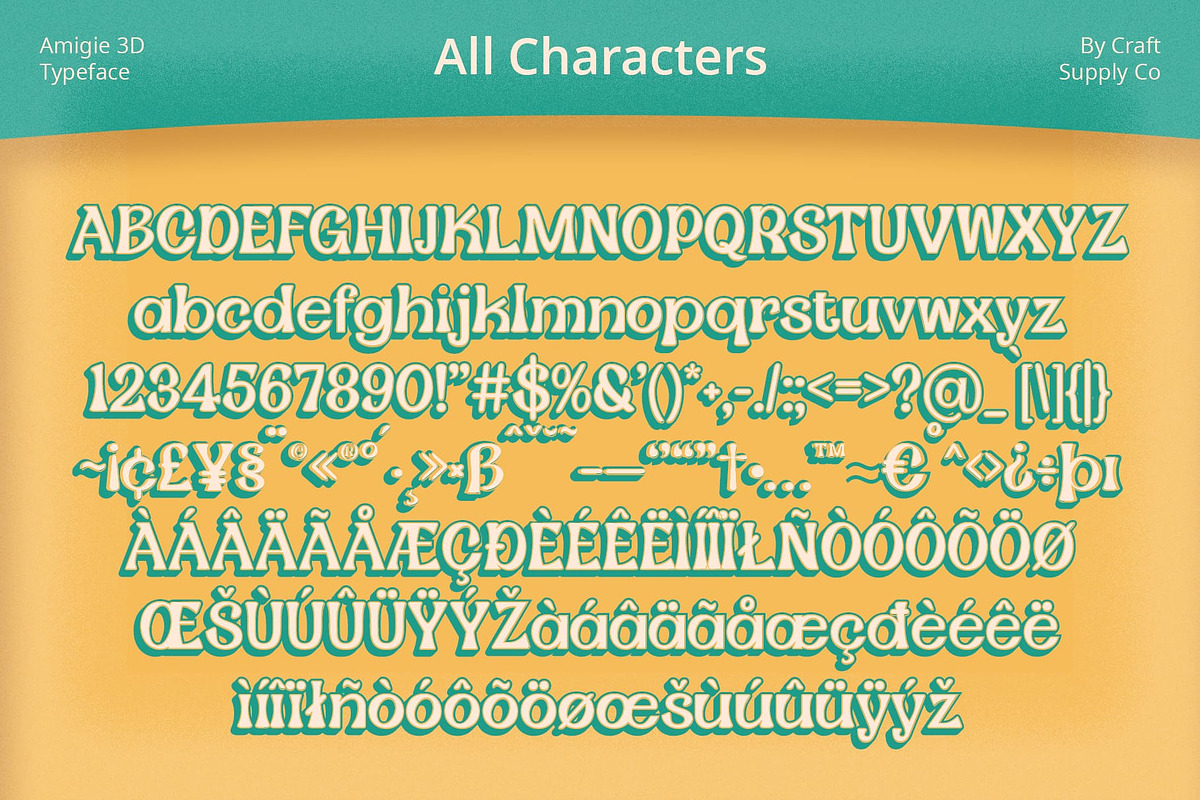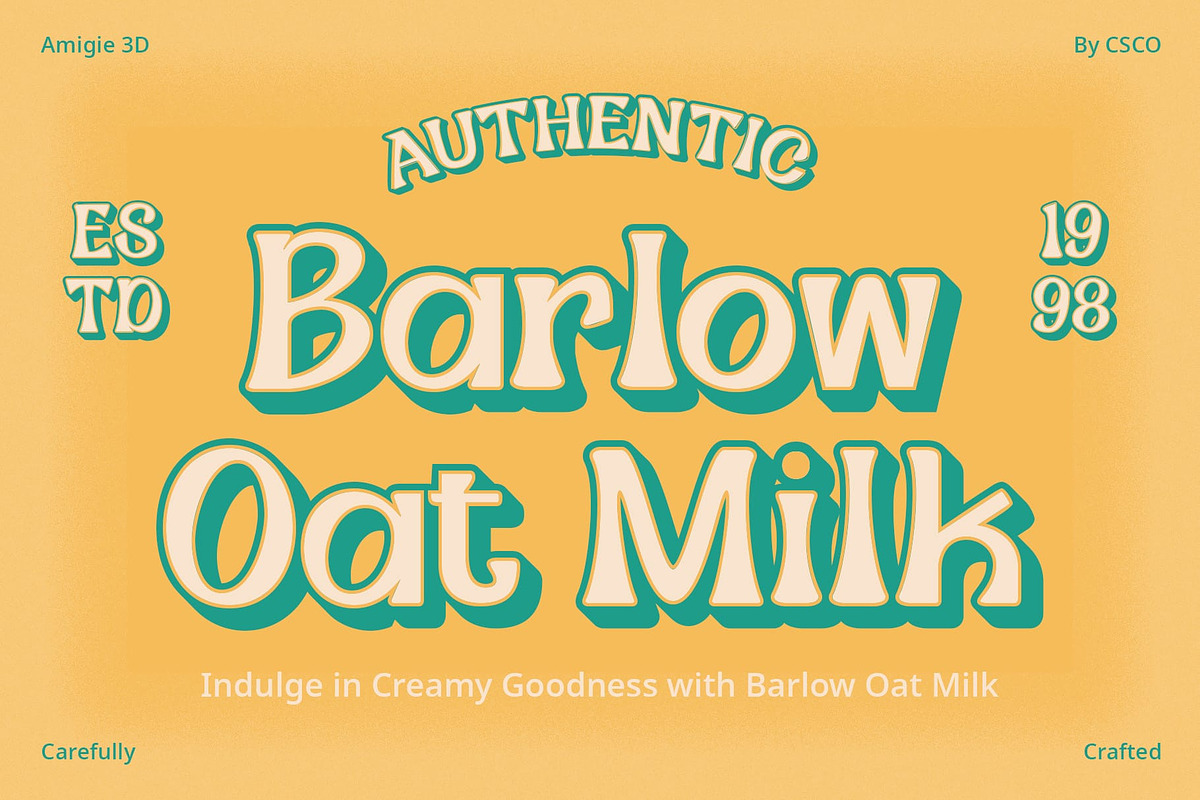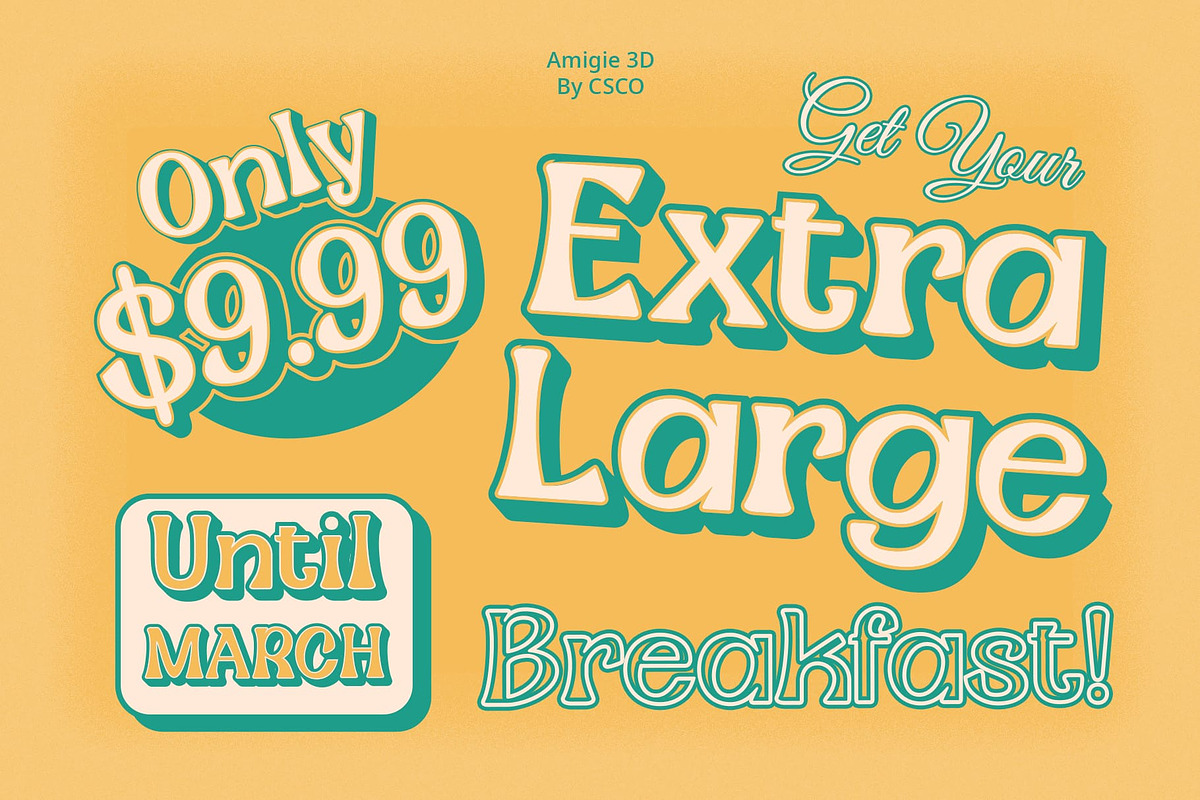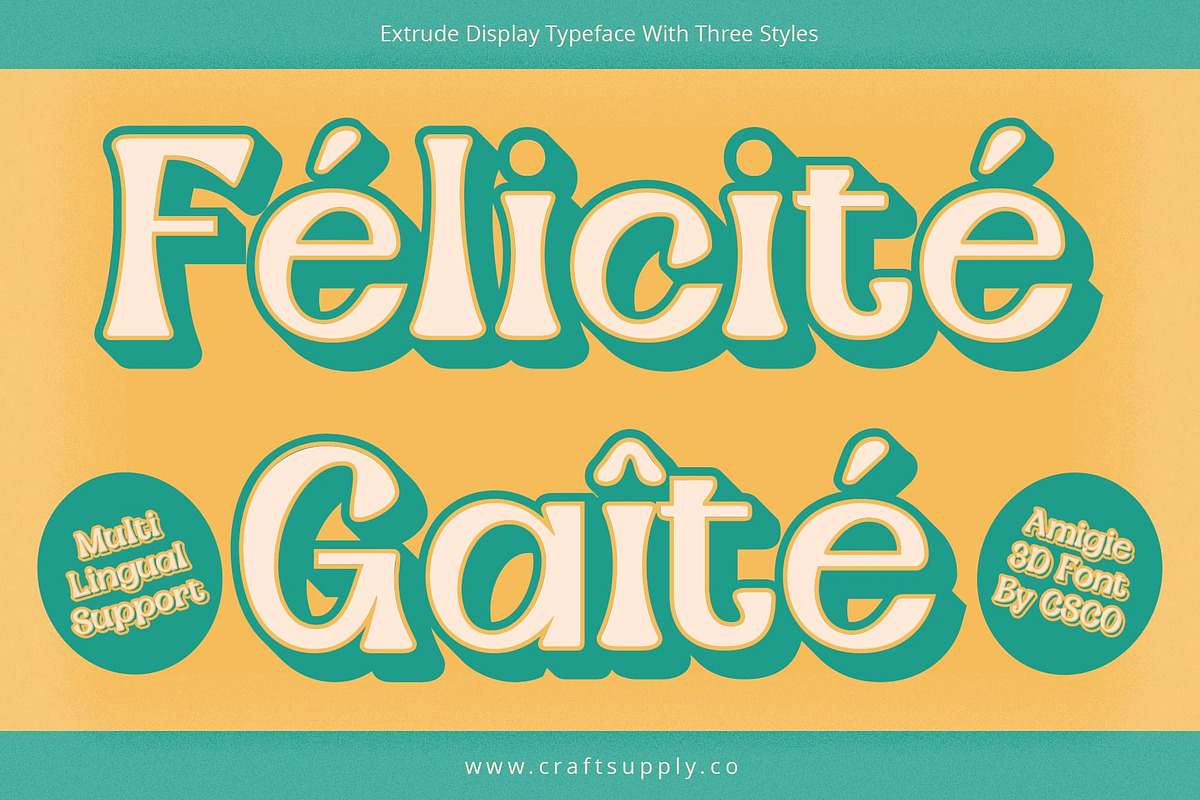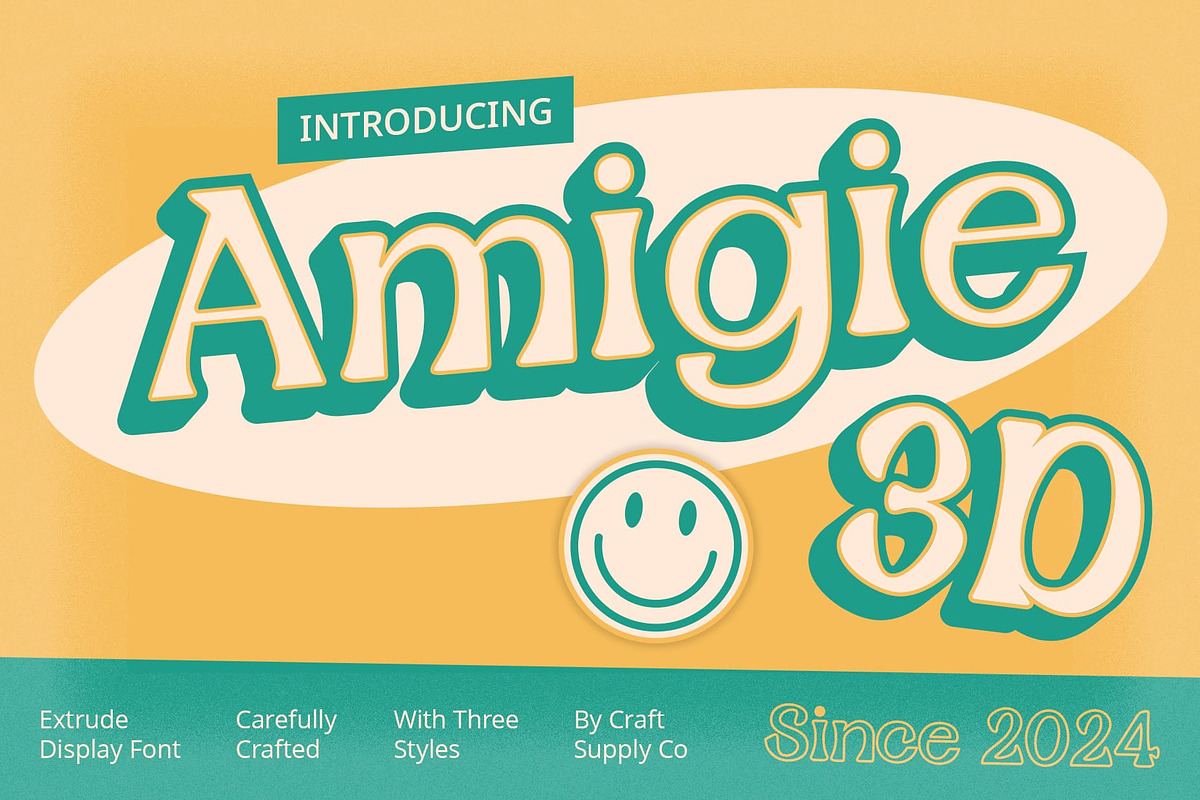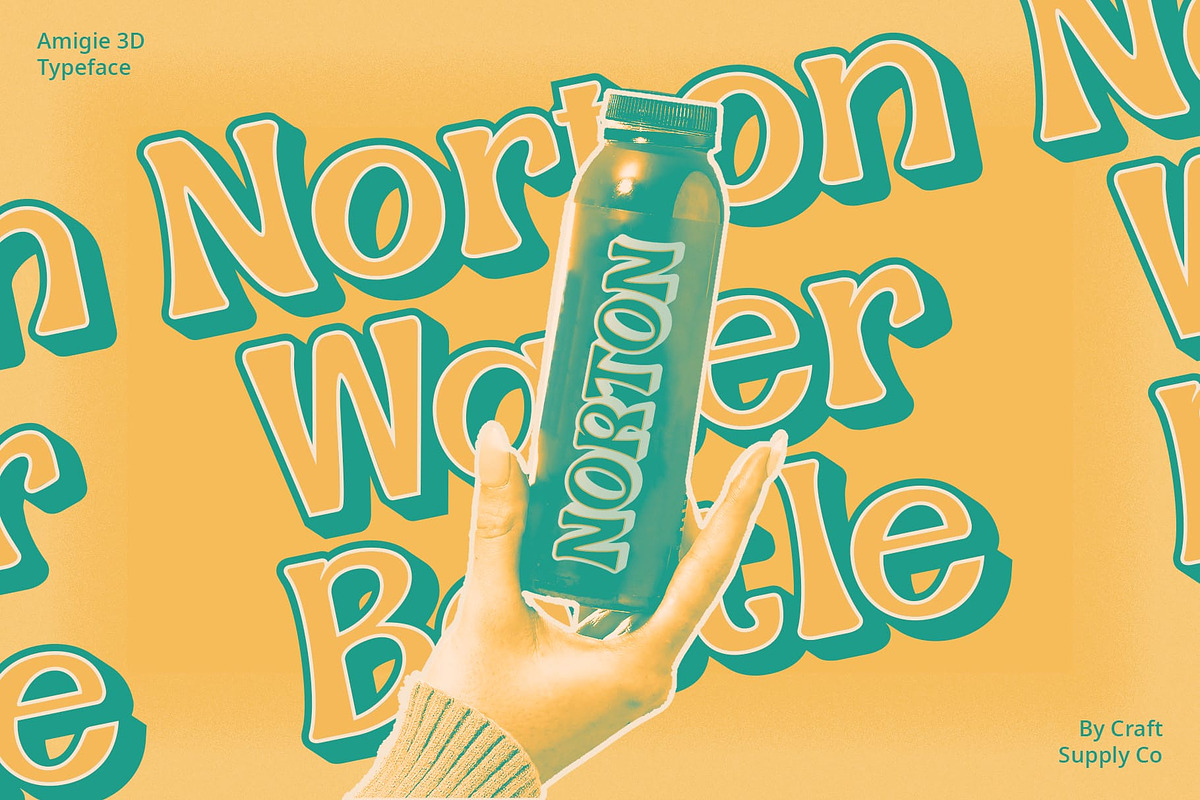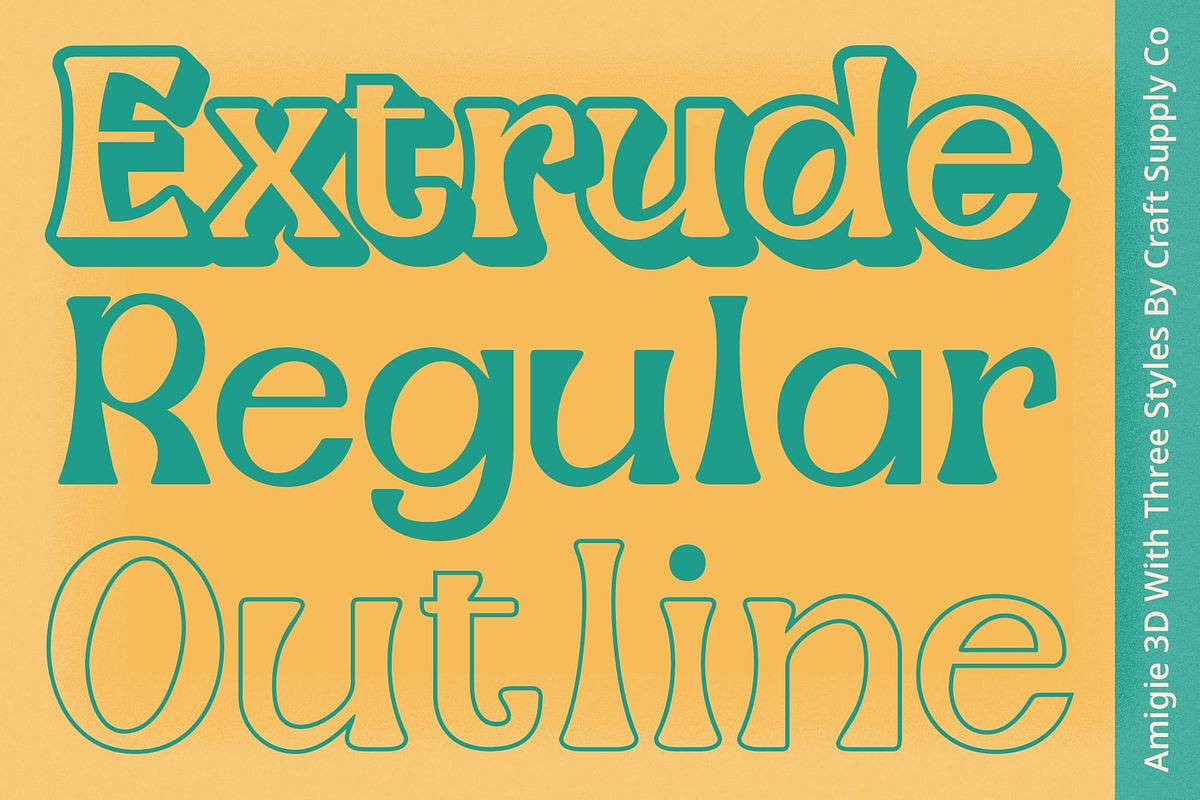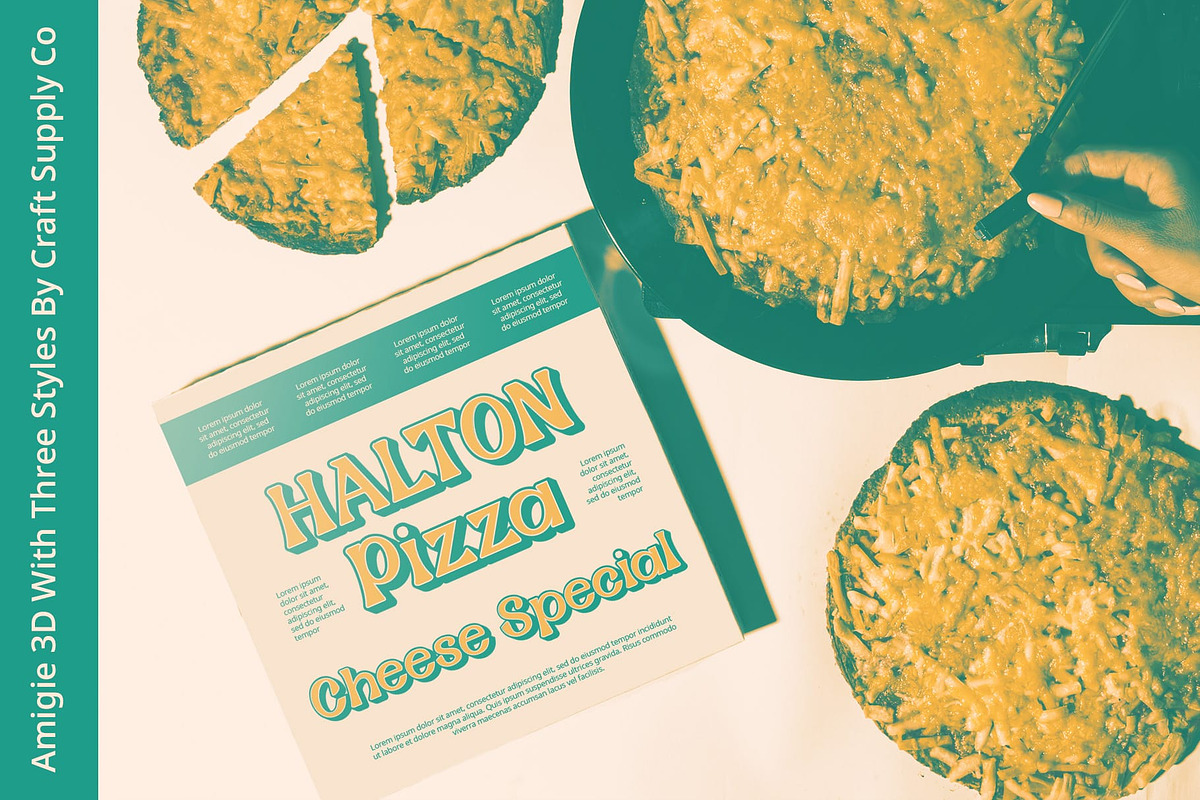
Amigie 3D
Amigie 3D: Embracing Funky Retro Vibes
Funky and Retro Appeal Amigie 3D exudes a vibrant and retro-inspired aesthetic, infusing your designs with playful and nostalgic vibes that harken back to the funky styles of yesteryears.
Dynamic 3D Effects With its captivating 3D effects, This font adds depth and dimension to each character, creating an eye-catching display typography that pops off the page or screen with its mesmerizing visuals.
Perfect for Display Needs Tailored specifically for display purposes, This font is the ideal choice for projects requiring bold and attention-grabbing typography. Its funky retro style ensures maximum impact in various contexts, making it perfect for posters, advertisements, and promotional materials.
Versatile Application Beyond its funky retro charm, This font offers versatility in application. Whether used in posters, album covers, digital media, or branding materials, its 3D effects bring a unique and dynamic touch to any design, elevating it to new levels of creativity and visual interest.
Retro Delight This font stands out as a delightful blend of funky retro aesthetics and modern 3D technology. Elevate your designs with its playful charm and dynamic appeal, perfect for capturing attention and adding flair to any project, from retro-themed events to contemporary digital campaigns.
- Amigie Regular
- Amigie Outline
- Amigie Extrude Right
- Amigie Extrude Left